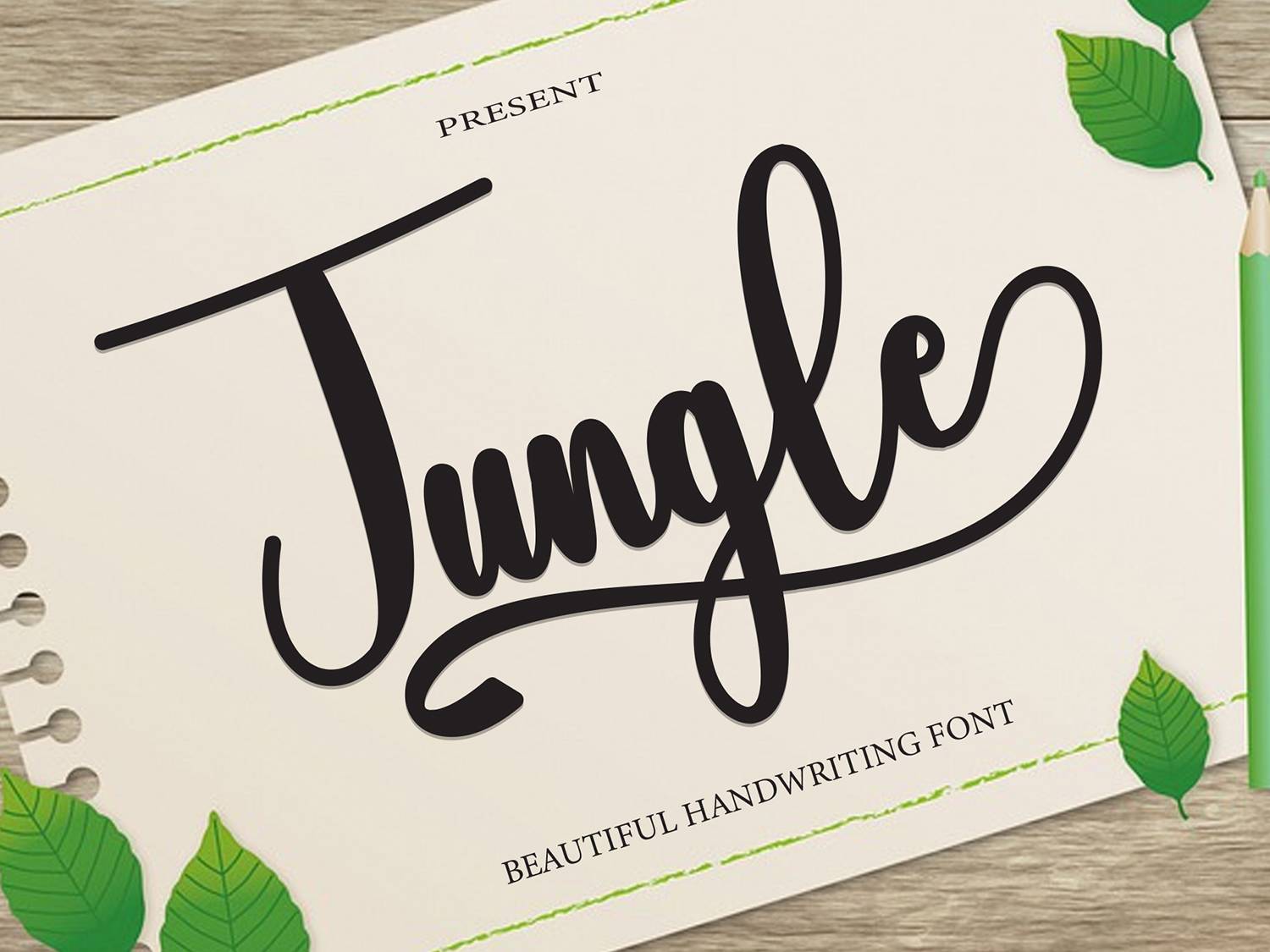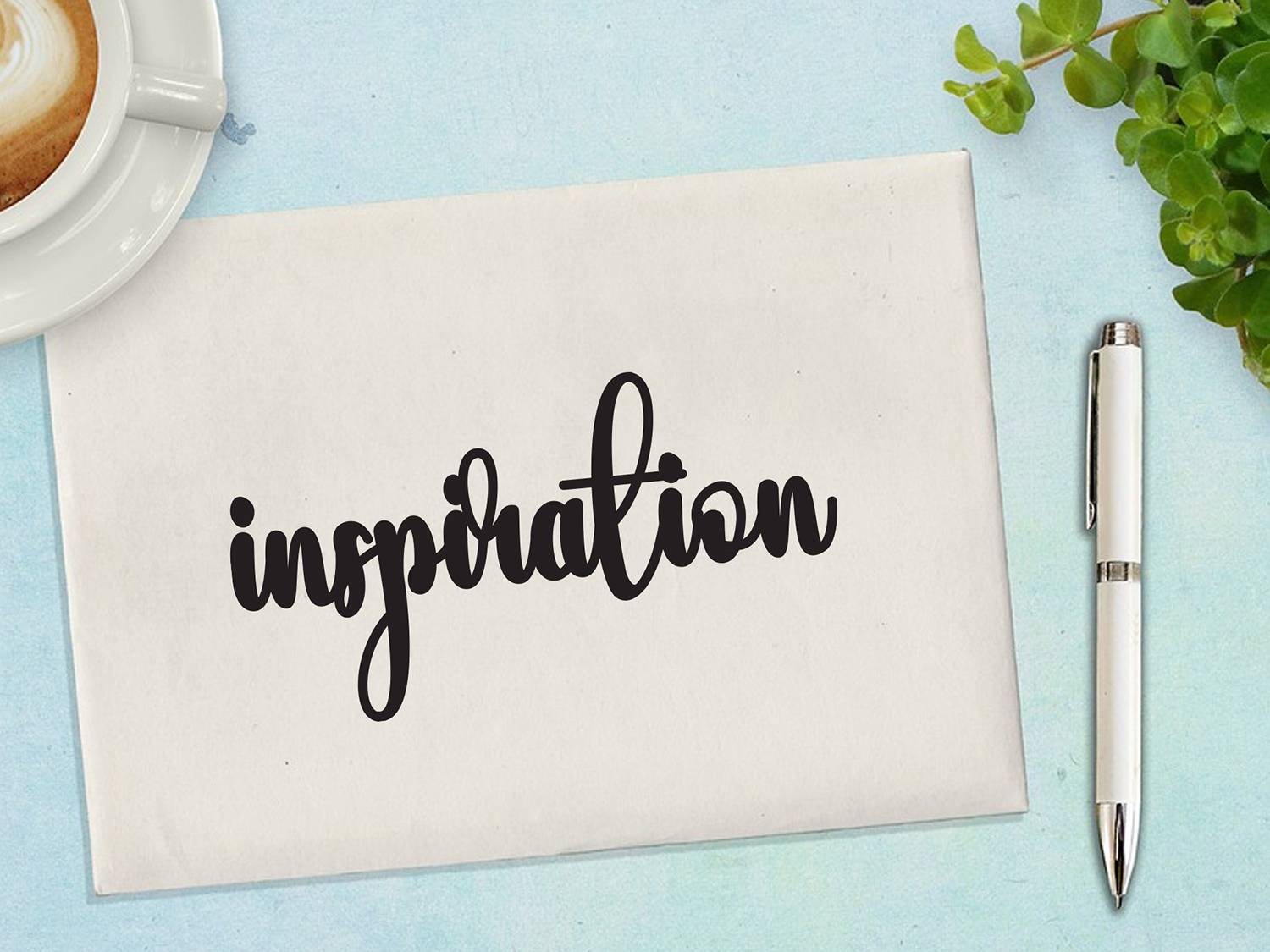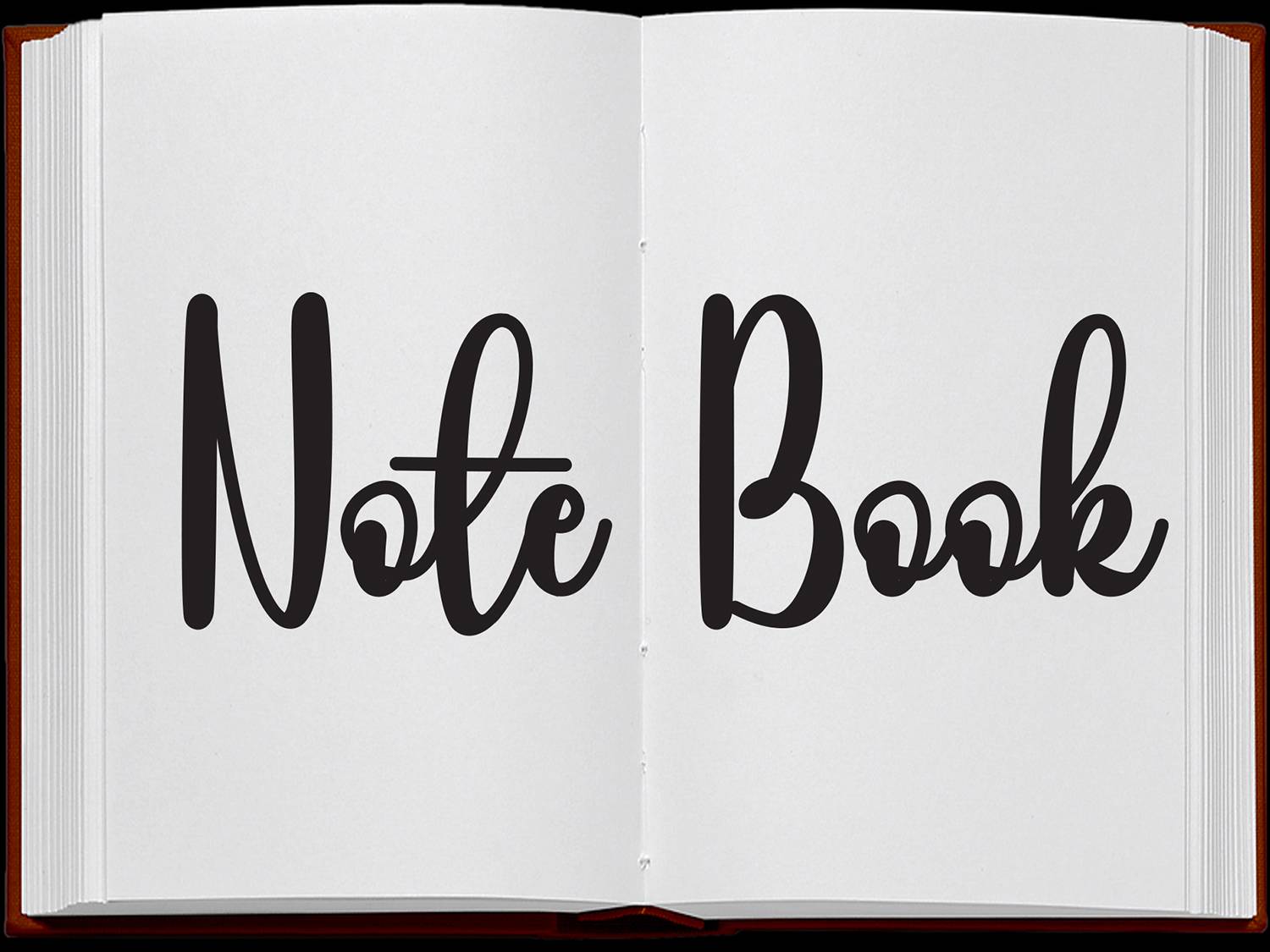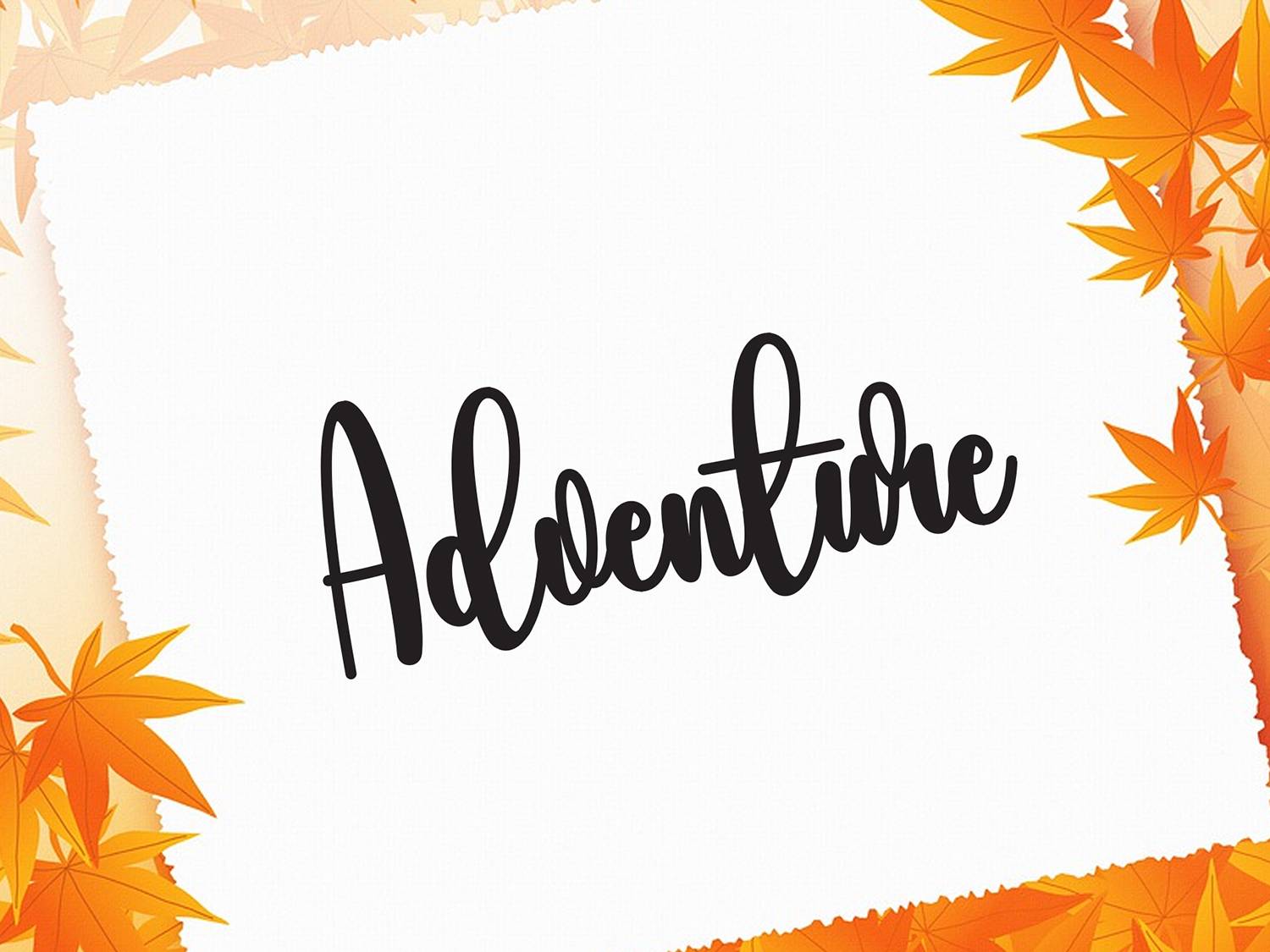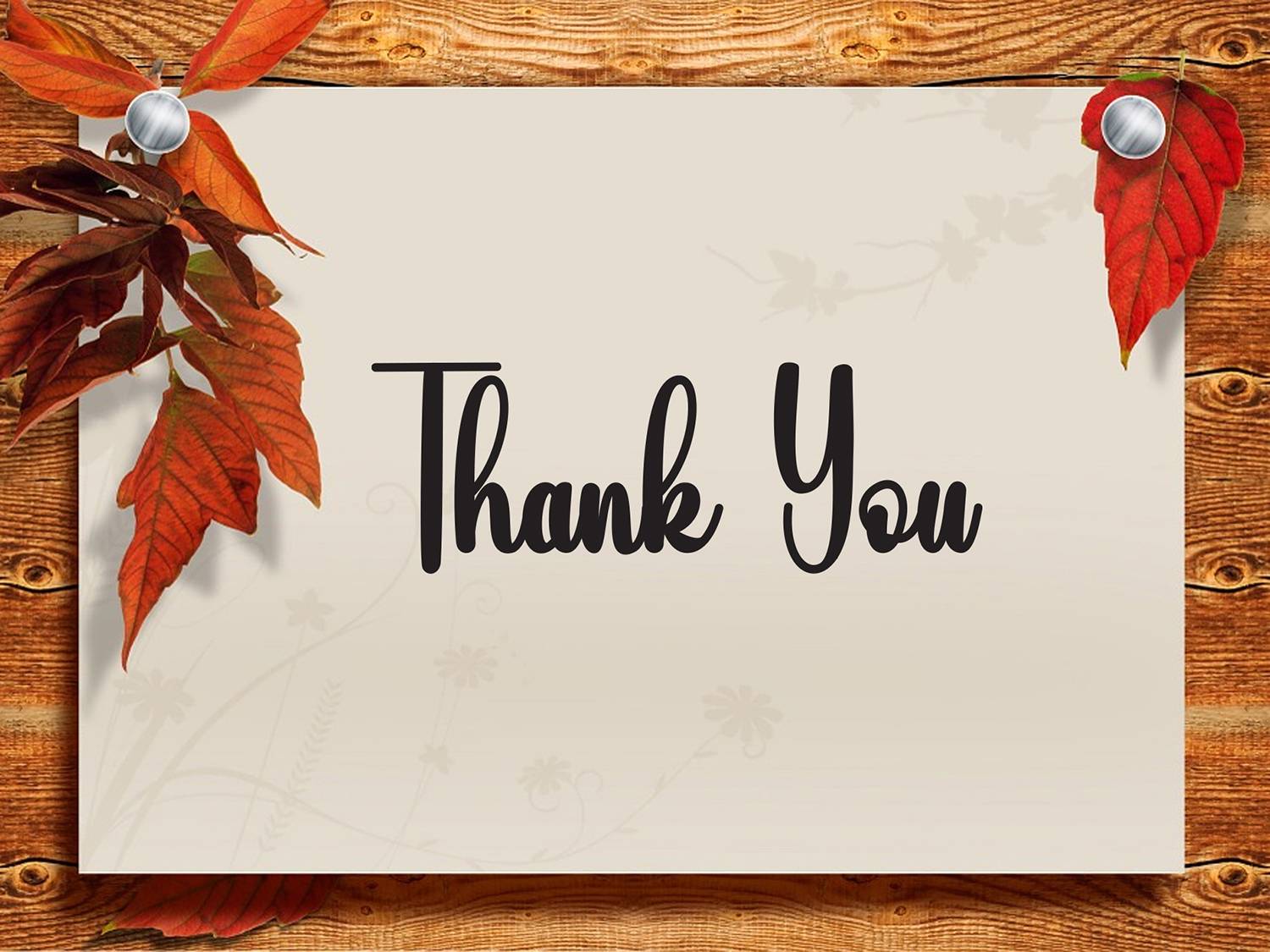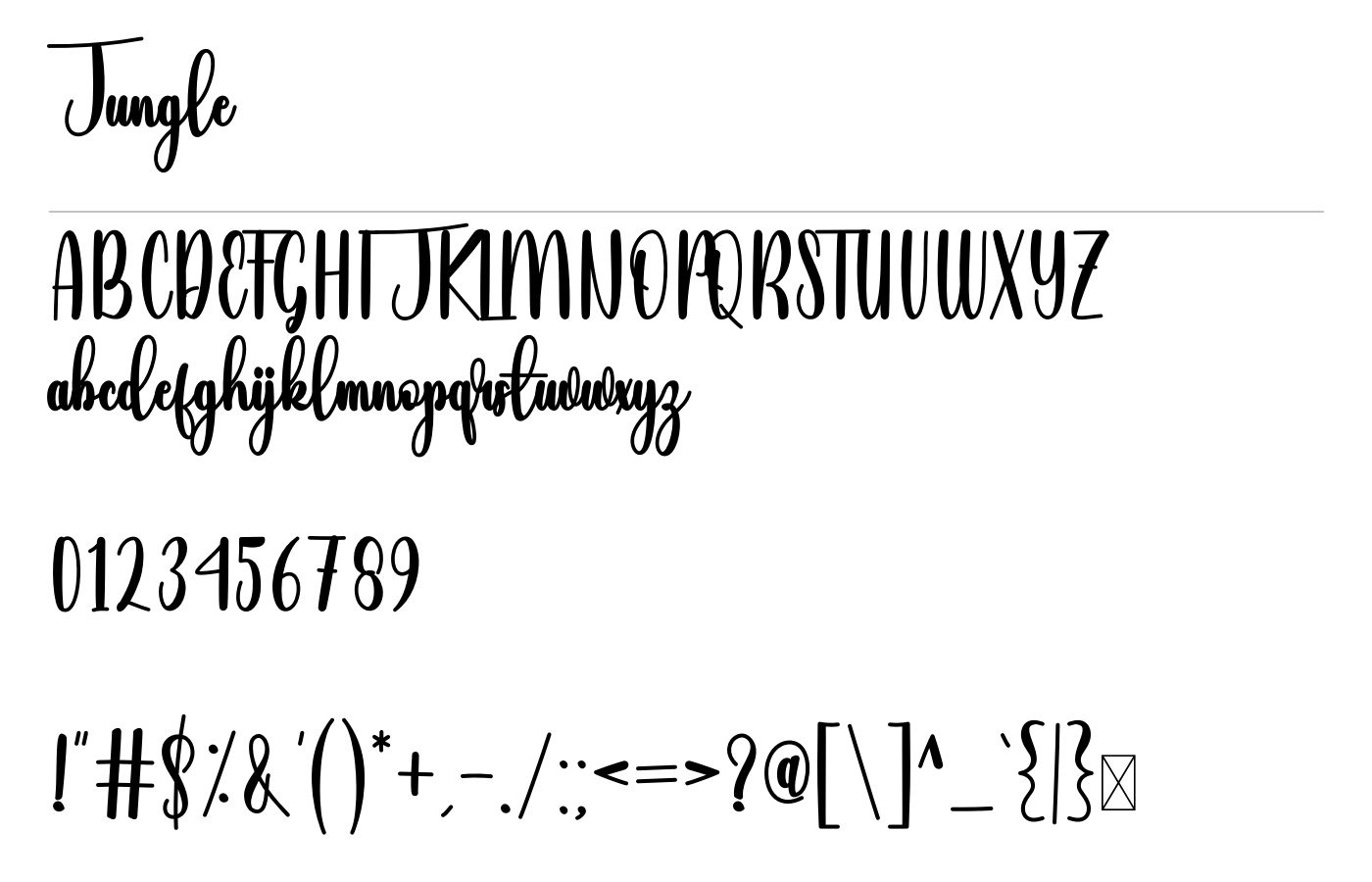
Jungle Font is a playful and tall handwritten script with a narrow, elongated style and smooth, flowing strokes that give it a lively and informal feel. Its slender letterforms and quirky details make it ideal for creative projects, casual branding, and invitations where a friendly, personal touch is desired. This font works best for headlines and decorative uses, adding character and charm without overwhelming the design.
Jungle Font